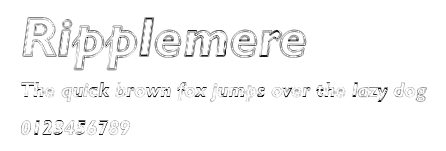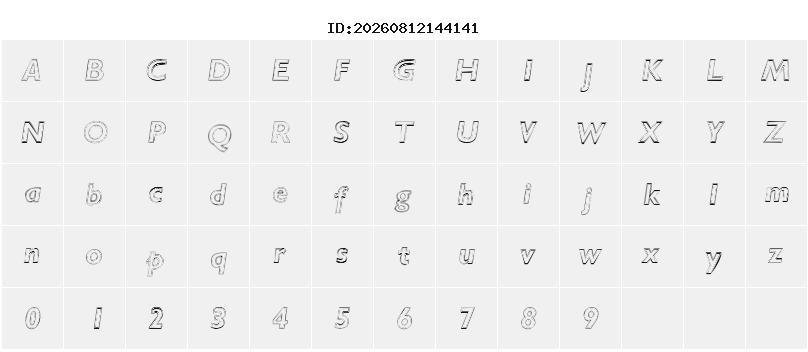
Ripplemere Preview
• Font Name: Ripplemere
• Font Style: ThinItalic
• Font ID: Ripplemere ThinItalic
• Full Font Name: Ripplemere ThinItalic
• PostScript Name: RipplemereThinItalic
About Ripplemere.ttf
Ripplemere.ttf is a modern, elegant sans-serif font designed for ultimate readability and visual harmony. Perfect for branding, headlines, web design, and print materials.